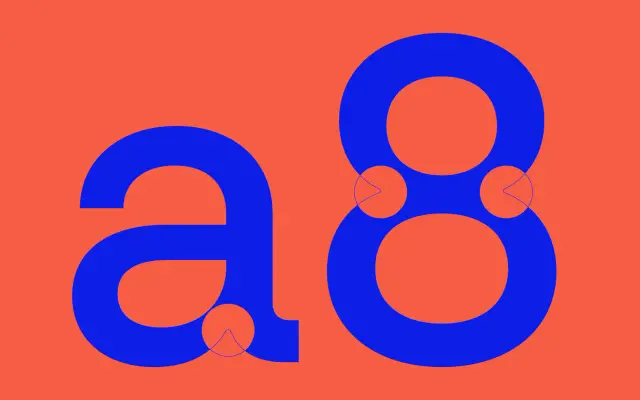
F37 Zagma
A thirty-six-style hybrid sans fusing geometric and grotesque drawing across Regular, Expanded and Wide widths, anchoring a superfamily with Serif, Text, Mono and Arabic cuts.
A hybrid sans serif by F37 that fuses grotesque and geometric letterforms across thirty-six styles. Six weights from Light to Black are drawn at Regular, Expanded and Wide widths with matching italics, and the wider F37 Zagma system extends into Serif, Text, Mono and Arabic companions. Designed for brand systems that need a single voice running from interface through to billboards, with the structural calm of a grotesque and the geometric bite of a display sans. Pairs naturally within the Zagma superfamily.
A hybrid sans that fuses grotesque and geometric letterforms, drawn across multiple widths from Regular to Wide, with an Arabic companion and matching Mono, Serif and Text cuts in the wider system.